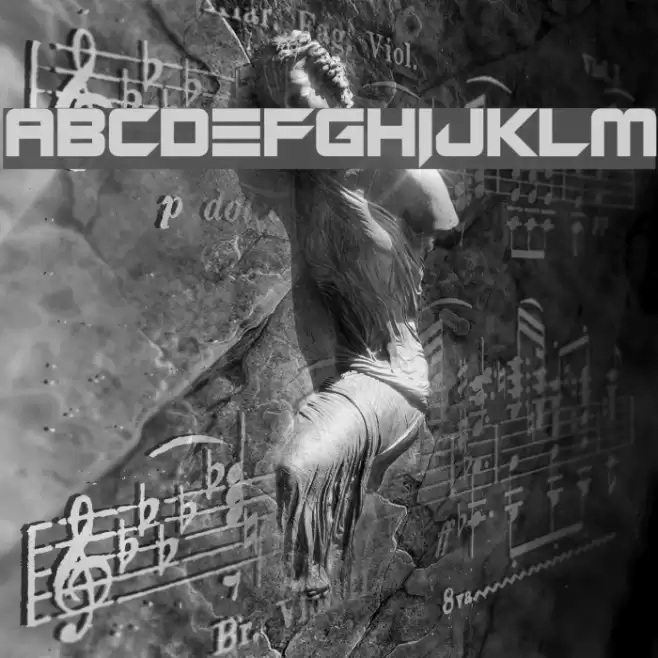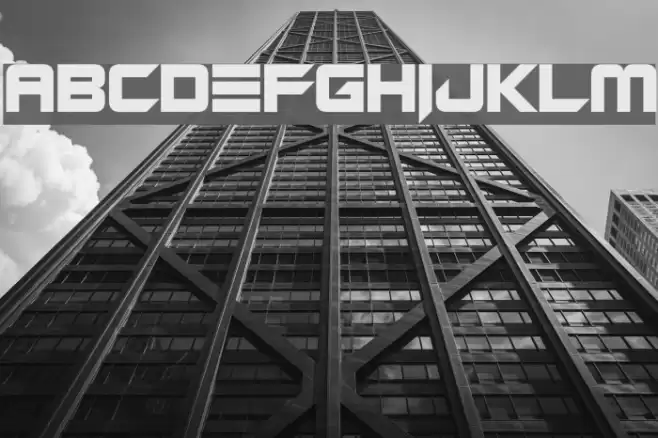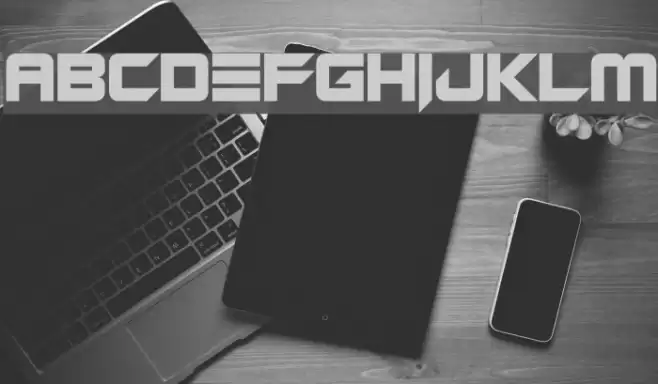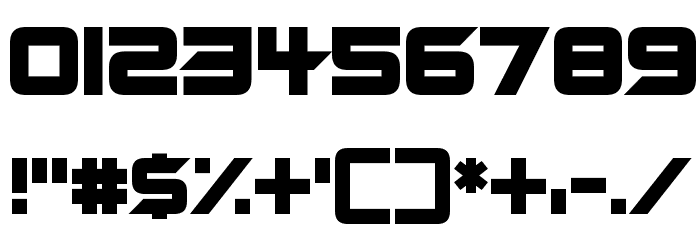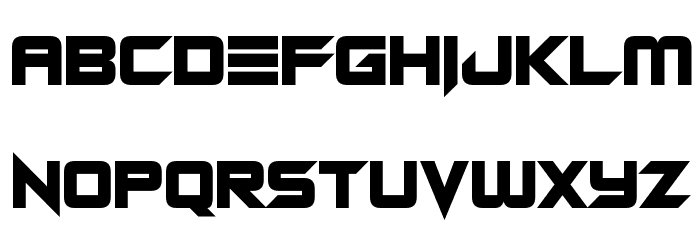
Android Assassin Font
Android Assassin Description
This font features a futuristic and angular design, characterized by sharp edges and geometric forms. The uppercase letters are bold and commanding, with a distinct sci-fi aesthetic that is both modern and edgy. The lowercase letters maintain the same angular style, ensuring consistency across the typeface. Numbers are equally bold, with a uniform width that complements the overall design. Special characters are crafted with the same attention to detail, making them suitable for a variety of digital and print applications. The font's unique style makes it ideal for projects that require a modern and technological feel.
A futuristic, angular font with a bold, sci-fi aesthetic from Uncategorized fonts.
- Proposed Projects: Ideal for video game titles, tech branding, movie posters, and digital interfaces.
- Overall Style: Futuristic